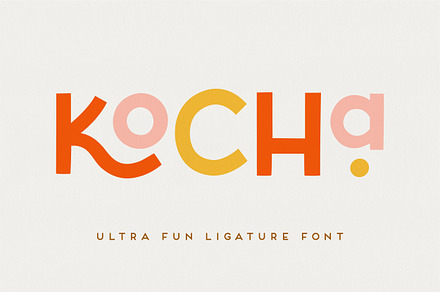
Kocha | Playful Ligature Font
A playful sans with an extensive ligature set, where character pairs join into combined forms that add personality to a setting.
Ligatures give a typeface variety without requiring alternate glyphs to be chosen manually, since they substitute automatically as you type.
- Extensive automatic ligature set
- Multilingual support
Ideal for
- Brand identity and logos
- Packaging and label design
- Social and campaign graphics
- Editorial headlines